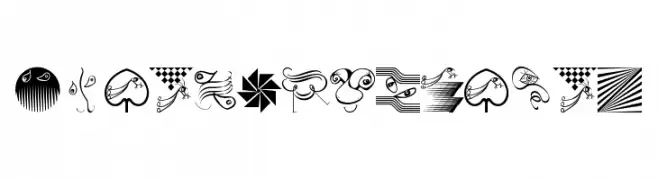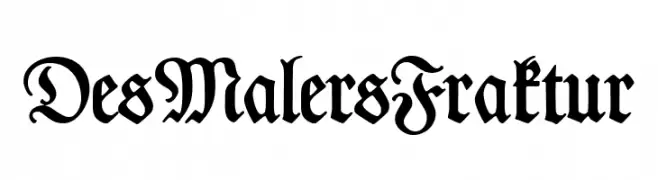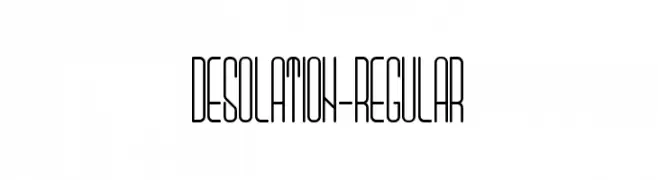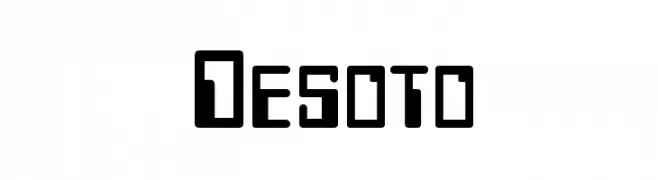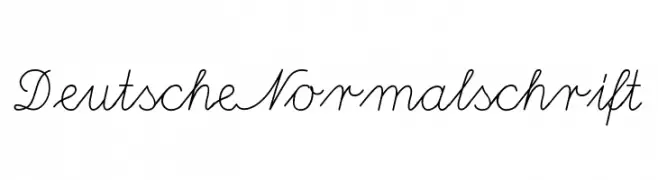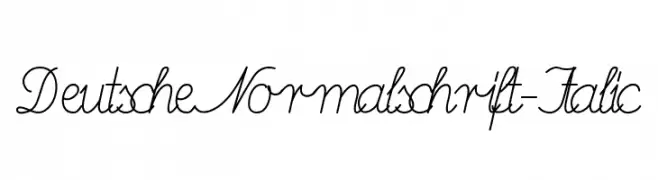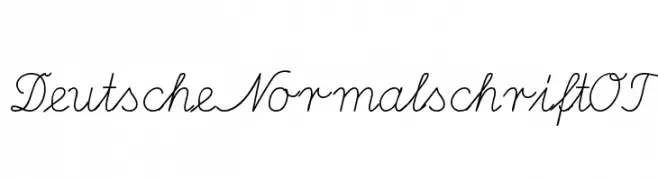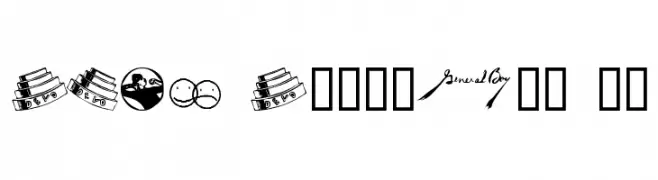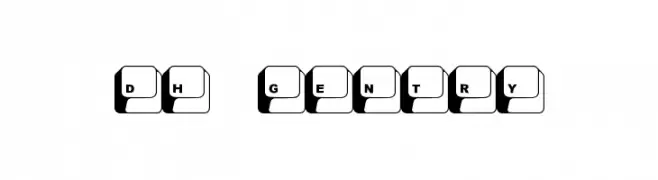
An artistic and decorative font with each character enclosed in a detailed emblem.
A collection of ornate and decorative elements with vintage and classical influences.
Abstract, decorative dingbat font with surreal face and shape illustrations.
( James Key - web.archive.org/web/20010725092544/www.spd.louisville.edu/~jakey001/dween/ )
A bold, graffiti-inspired font with angular, geometric letterforms.
A decorative Blackletter font with intricate and ornate gothic design.
A traditional Blackletter font with ornate, medieval-inspired design.
A modern, elongated font with a sleek and futuristic design.
( Fonts by Alan Carr )
A bold, textured font with a distressed, grunge style.
( Southype - southype.com )
A bold, distressed font with a rugged, vintage appearance.
A bold, cursive font with interconnected characters and a flowing, elegant style.
( dcoxy - Greg Medina - www.dcoxy.com/ )
A bold, cursive font with fluid, connected strokes and a handwritten style.
A bold, cursive font with interconnected, flowing characters.
( dcoxy - Greg Medina - www.dcoxy.com/ )
A bold, cursive font with elegant, sweeping curves and high contrast.
A bold, dynamic script font with interconnected letters and elegant flourishes.
( dcoxy - Greg Medina - www.dcoxy.com/ )
A bold, cursive font with dynamic curves and expressive loops.
A classic cursive font with elegant, flowing lines and uniform stroke thickness.
A classic cursive font with elegant, flowing lines and seamless letter connections.
A graceful, flowing script font with an elegant, italicized style.
A flowing, cursive script font with a sophisticated and graceful style.
An elegant cursive script font with flowing, connected characters.
A classic cursive font with elegant, flowing lines and a sophisticated style.
A bold, cursive script font with interconnected letters and a flowing style.
A bold, cursive font with interconnected letters and a strong visual presence.
( Fonts by fey design )
A sophisticated, flowing script font with elegant loops and high contrast.
A decorative font with devilish figures encased in circles, offering a spooky and thematic style.
( FOD - www.geocities.co.jp/siliconvalley/1286/ )
A 3D keyboard keycap-style font with bold, uniform characters.
( FOD - www.geocities.co.jp/siliconvalley/1286/ )
A playful, hand-drawn font with irregular, textured edges.
( Southype - Rodrigo Gonzalez - www.southype.com )